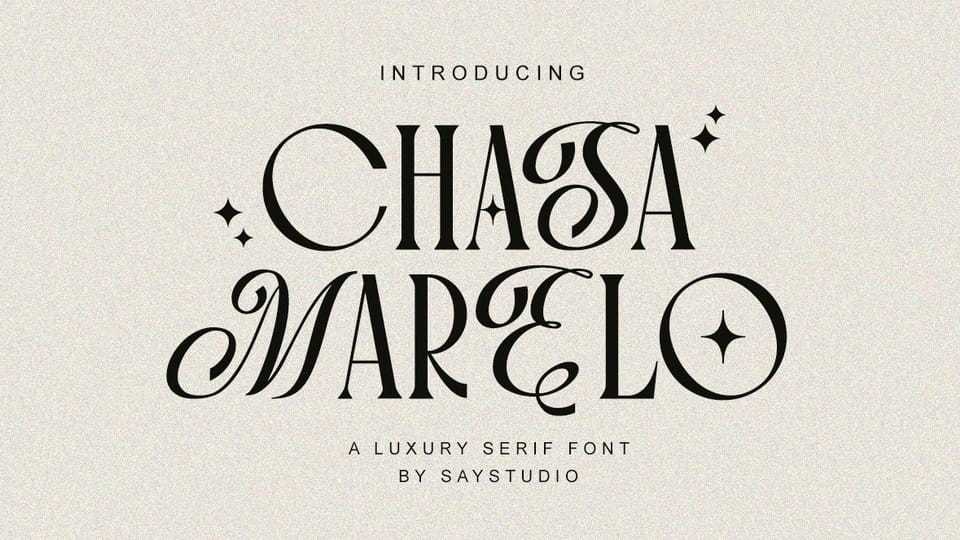
Download Chasa Marelo font, a brand new, luxury serif typeface. The main font is a serif, which in regular and alternates uppercase looks cool, chic & fashionably elegant.